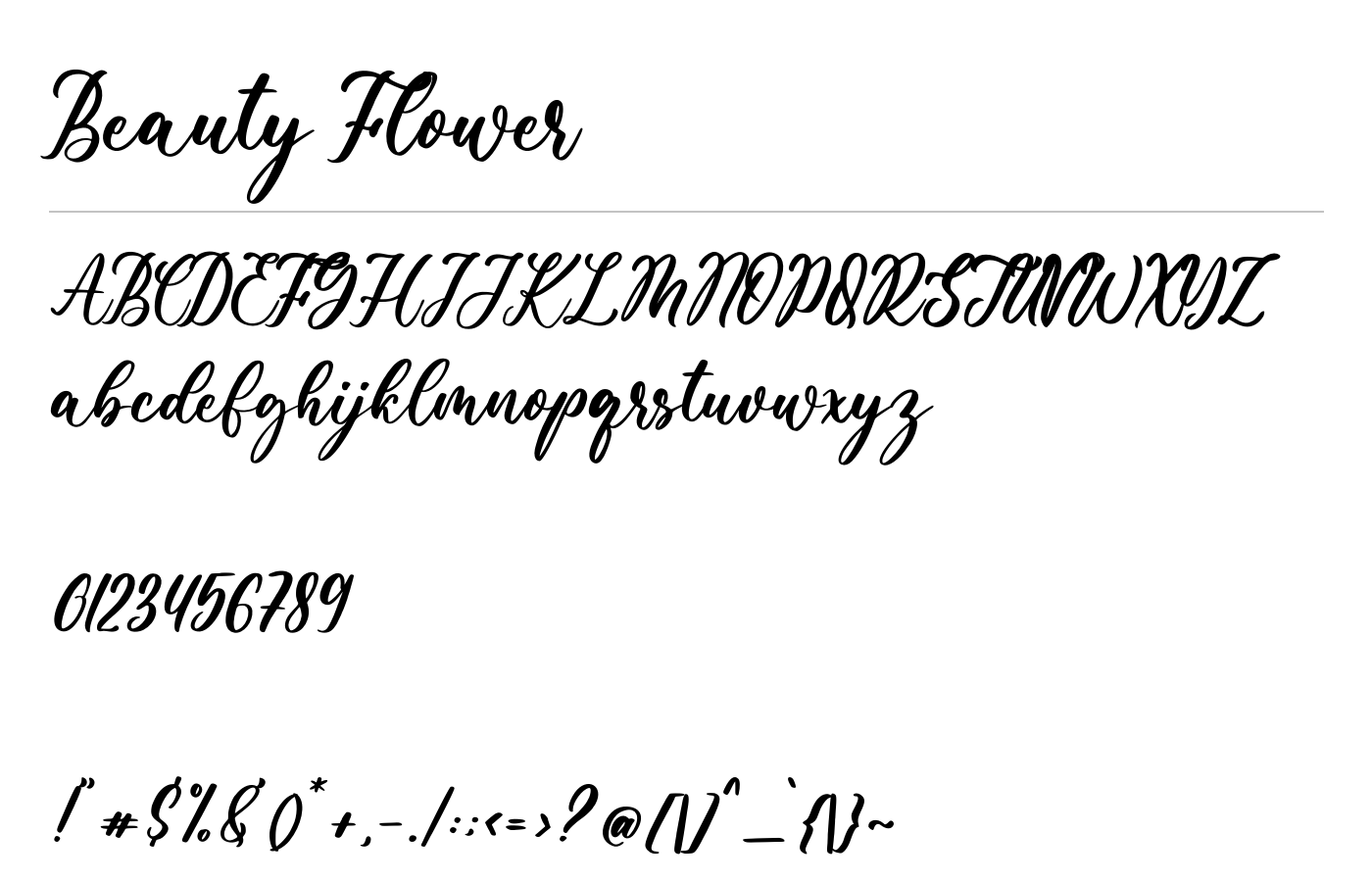
Beauty Flower is an elegant script font with a smooth, flowing style that features medium contrast strokes and graceful, connected letterforms. Its refined, handwritten feel makes it perfect for feminine branding, wedding invitations, beauty products, and any design seeking a romantic and stylish touch. This font works best in headlines and logos where its decorative flair can truly shine.
Beauty Flower Font
About Beauty Flower Font
| Font family | Beauty Flower Font |
| Designer | Novia Himatunnisa |